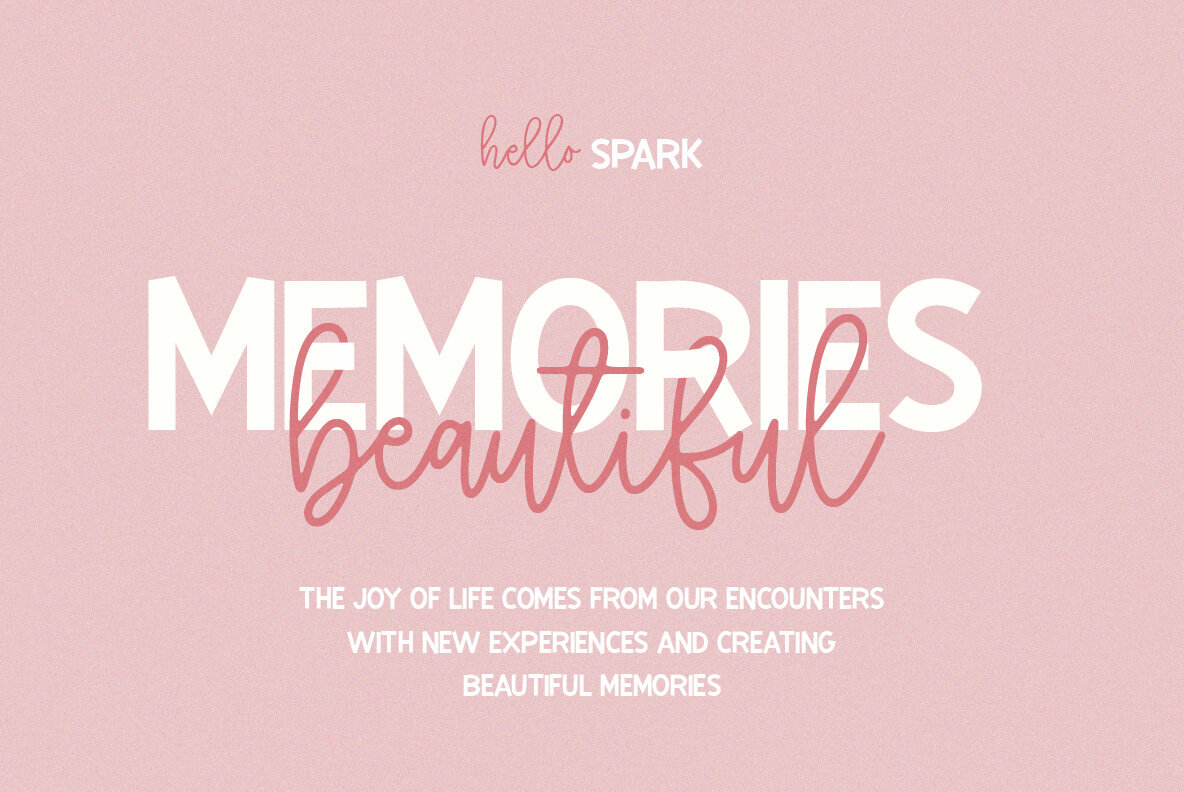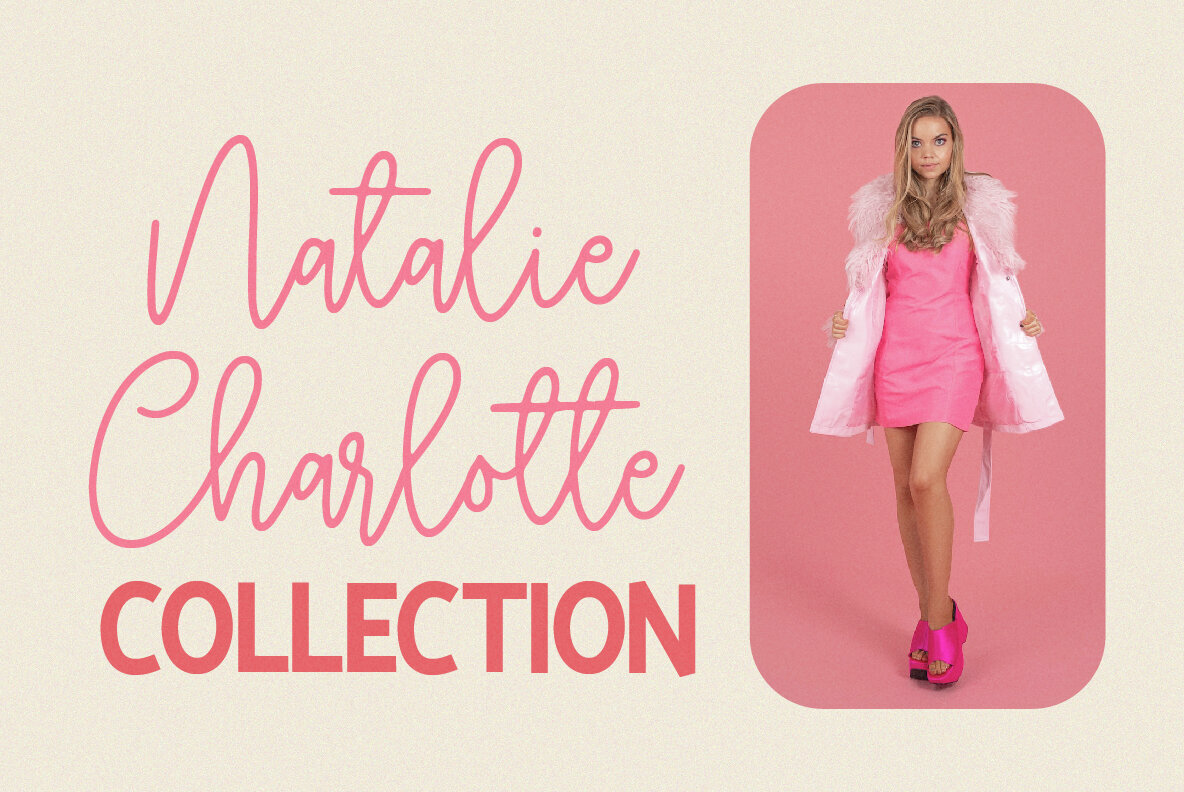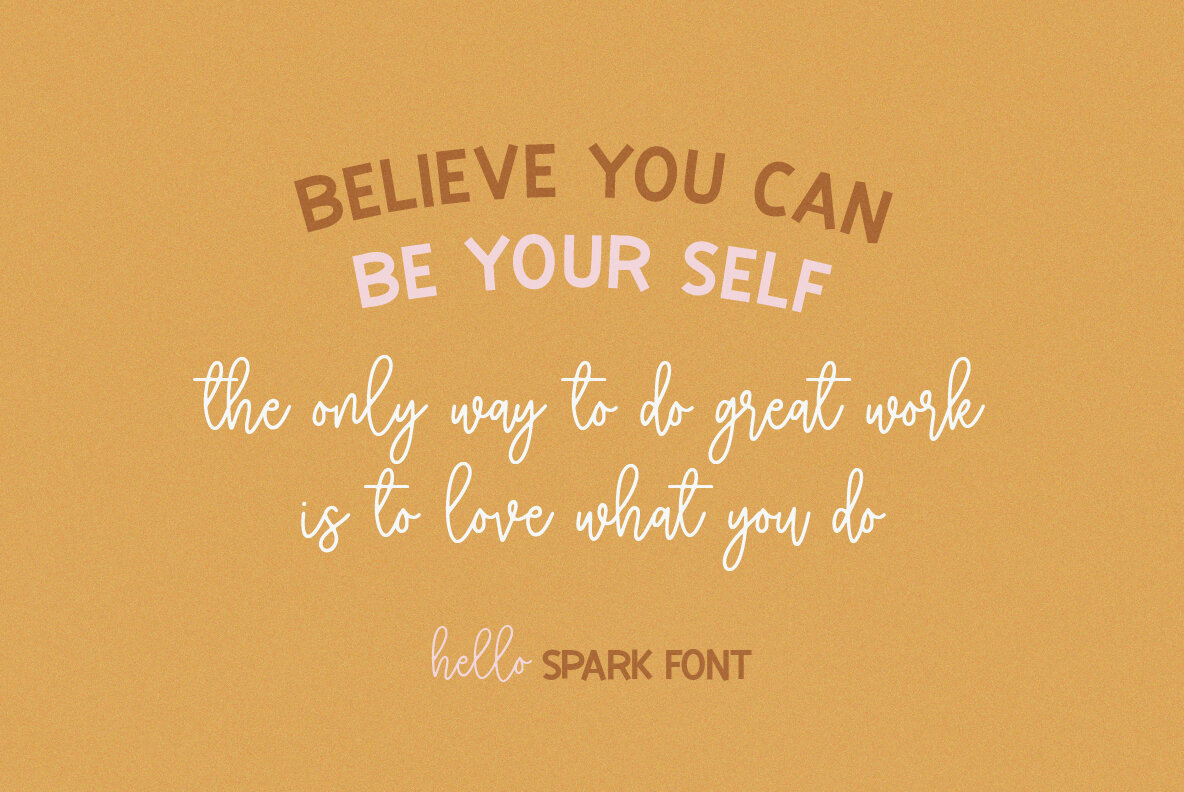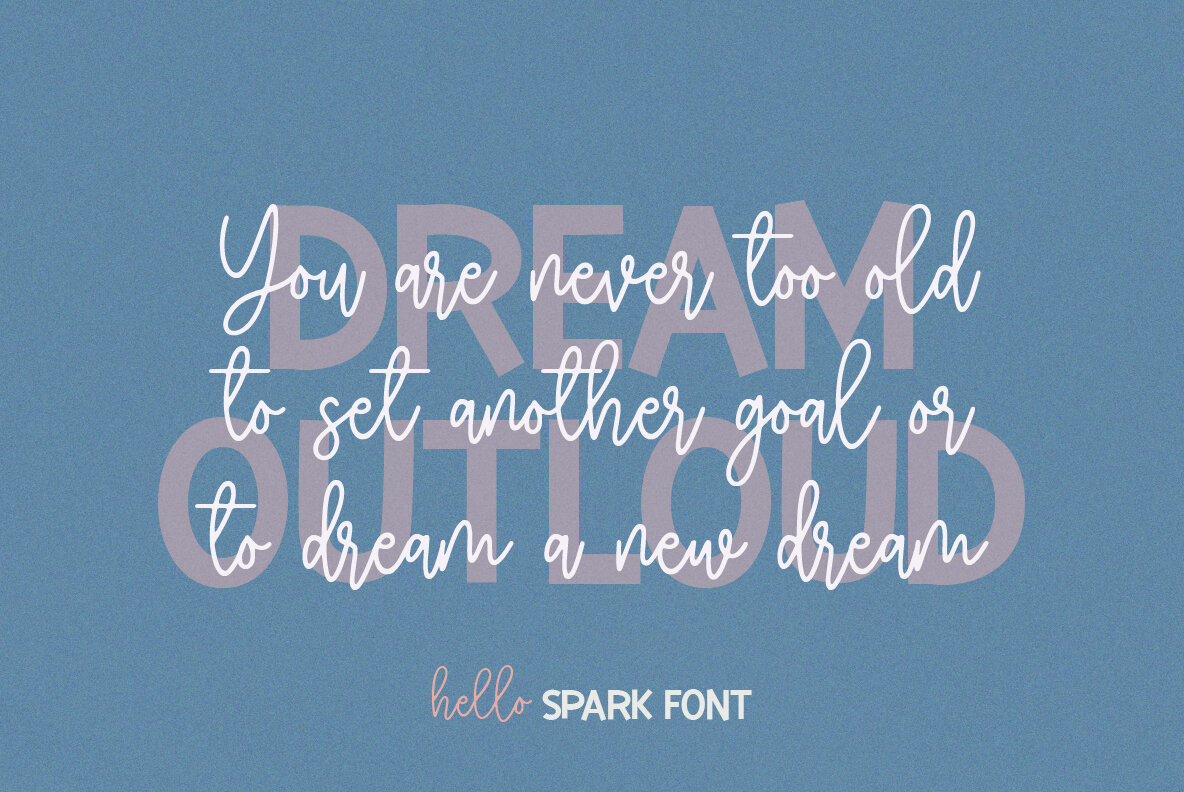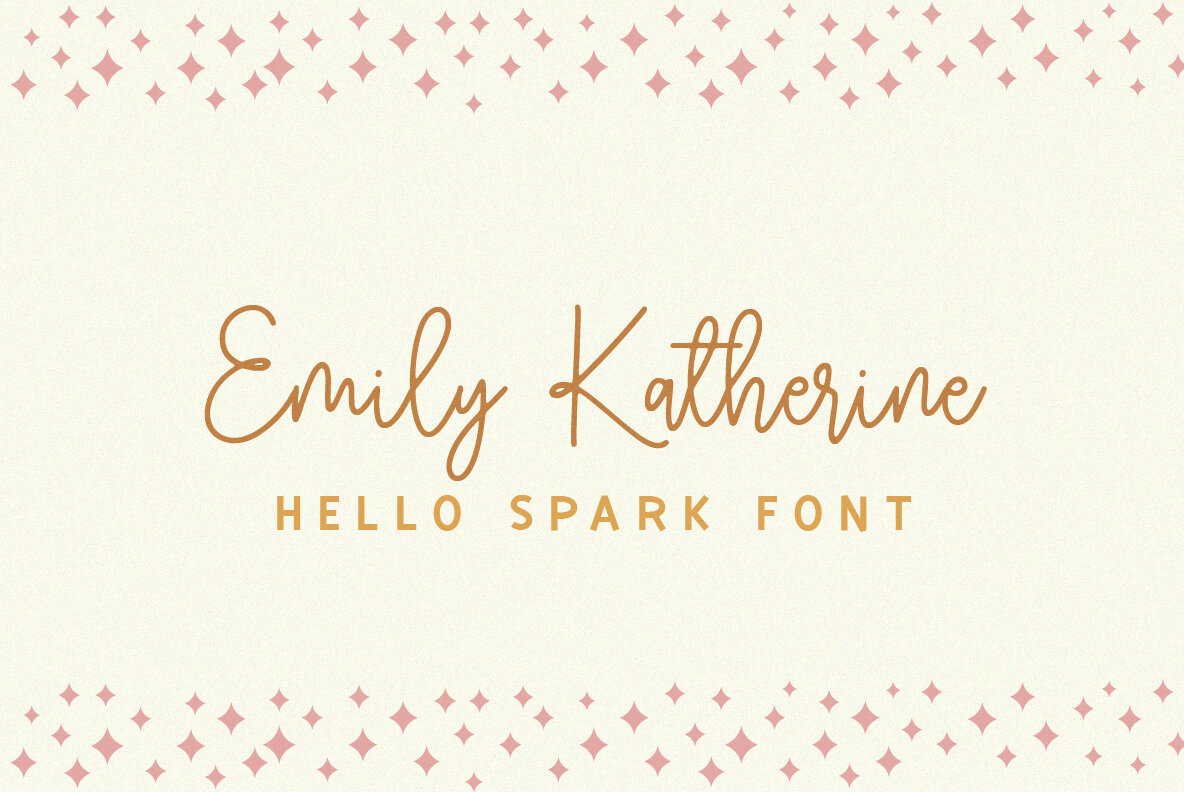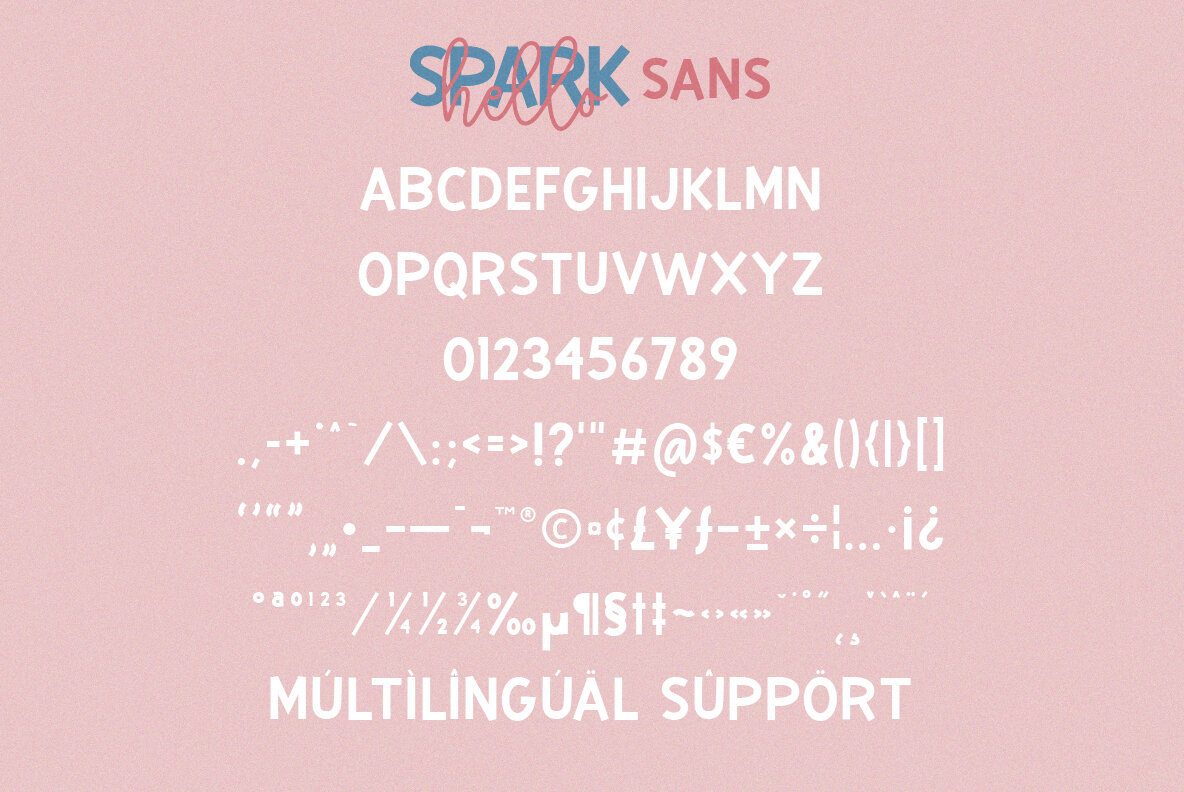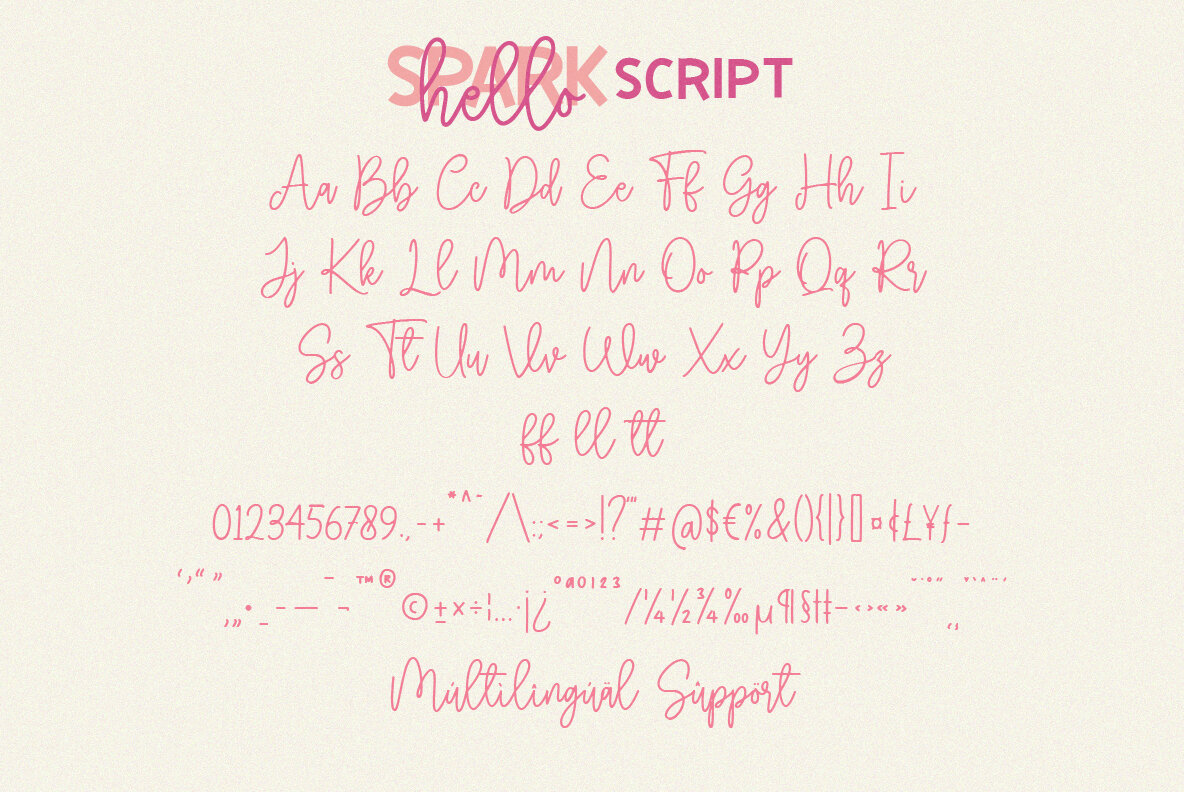
Hello Spark Font
Introducing Hello Spark Font, the perfect blend of cute script and sans serif display fonts! With its charming and playful appeal, this font is ideal for a wide range of creative projects. Whether it's books, greeting cards, posters, clothing, or picture books, this font brings joy and happiness to your designs.